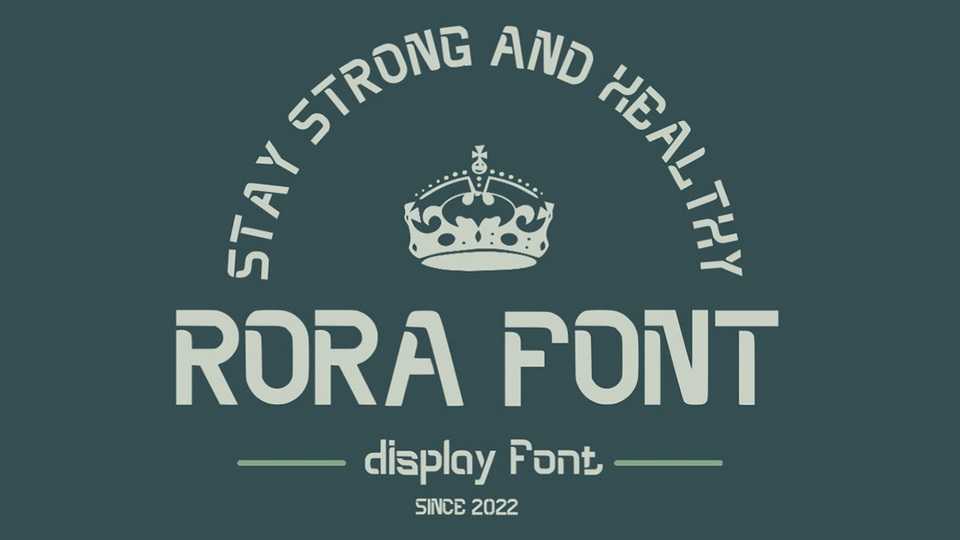
Download Rora font, a stencil display typeface with creative letter cuts. With its dynamic look Rora font is perfect for posters, logos, packaging and more.
Designer: Rosyid Raihan